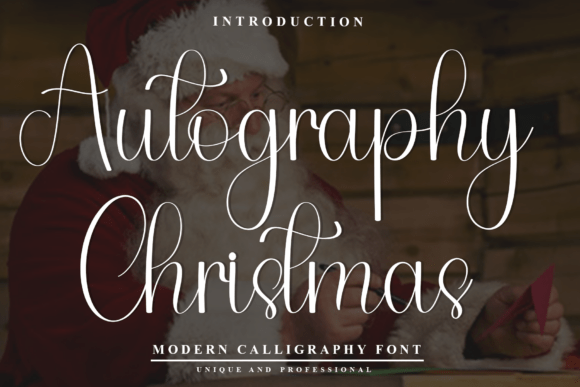
Introduction to Autography Christmas Font
Autography Christmas is a festive and merry typeface that captures the spirit of the holiday season.
With its decorative elements and whimsical flair, it adds a touch of enchantment to your designs Perfect for greeting cards, gift tags, and holiday-themed projects, this font brings a cheerful and nostalgic ambiance to your words.
Key Features of Autography Christmas Font
Why Choose Autography Christmas Font?
Autography Christmas Font offers exceptional quality and versatility, making it a valuable addition to your design toolkit. Whether you’re creating for personal projects or commercial use, Autography Christmas Font delivers professional results.